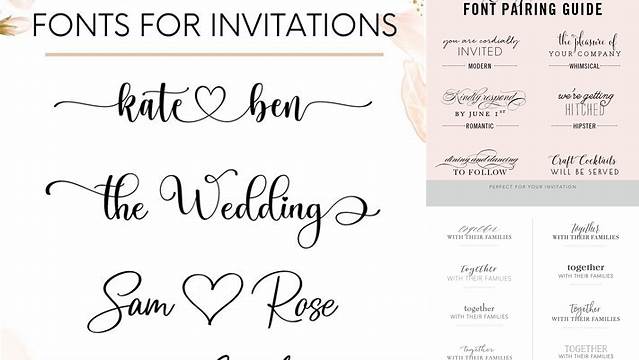
Elegant Fonts: The Best For Wedding Invitations
So, you're planning a wedding, huh? Congratulations! One of the most exciting parts (besides, you know, marrying the love of your life) is setting the tone for your big day. And what better way to do that than with gorgeous wedding invitations? But let's be real, choosing the right fonts can feel like navigating a maze. Fear not, future newlyweds! This comprehensive guide will walk you through the best fonts for wedding invitations, ensuring your invites are as stunning as your love story. Let's dive in, guys!
1. Elegant Calligraphy Fonts for Wedding Invitations
Elegant calligraphy fonts are a classic choice for wedding invitations, and for good reason! They exude sophistication and romance, adding a touch of timeless beauty to your special day. When you think of a traditional wedding, elegant calligraphy fonts often come to mind, evoking a sense of formality and grace. These fonts can transform your wedding invitations from simple cards into works of art, setting the perfect tone for a memorable celebration. Selecting an elegant calligraphy font is more than just choosing letters; it's about selecting a visual representation of your love story and the ambiance you wish to create for your wedding. Imagine your guests receiving an invitation adorned with swirling, delicate characters that hint at the beautiful and sophisticated event to come. That's the power of calligraphy!
But with so many calligraphy options available, how do you choose the right one? It's essential to consider the overall style and theme of your wedding. A very ornate and elaborate calligraphy might be perfect for a grand, formal affair, but it might feel out of place for a relaxed, bohemian wedding. Similarly, a modern calligraphy style with clean lines and a touch of whimsy might be ideal for a contemporary celebration. It’s crucial to choose a font that not only looks beautiful but also complements the overall aesthetic of your event. Think about your venue, the color scheme, and the general vibe you're aiming for. The font should enhance these elements, not clash with them.
When browsing elegant calligraphy fonts, pay attention to the details. Look at the thickness of the strokes, the presence of swashes and flourishes, and the overall readability of the font. Some calligraphy fonts are so intricate that they can become difficult to read, especially in smaller sizes. You want your guests to be able to easily read the essential information, such as the date, time, and location of the wedding. Balance elegance with practicality by choosing a font that is both beautiful and legible. Consider testing out different sizes and weights of the font to see how it looks printed on your invitation cards. You might also want to experiment with different color combinations to ensure that the font stands out against the background. Ultimately, the goal is to find an elegant calligraphy font that not only captures the essence of your love but also conveys the important details of your wedding day in a clear and stylish manner.
2. Modern Sans-Serif Fonts for Wedding Invitations
Moving away from the traditional, modern sans-serif fonts offer a sleek and contemporary feel for wedding invitations. If you're planning a wedding with a minimalist or modern aesthetic, these fonts are the way to go! Modern sans-serif fonts are characterized by their clean lines and lack of serifs (the little decorative strokes at the ends of letters). This simplicity lends itself well to a variety of wedding styles, from urban chic to understated elegance. They bring a fresh and airy feel to your invitations, making them a perfect choice for couples who appreciate clean design and readability. Think of these fonts as the stylish and sophisticated counterpart to the more traditional calligraphy options. They’re perfect for couples who want to convey a sense of contemporary romance and effortless cool.
One of the best things about modern sans-serif fonts is their versatility. They pair well with a wide range of design elements and color schemes. You can use them for the main text of your invitation, for headings, or even for both! This adaptability makes them a fantastic choice for couples who want a font that can work in various contexts. For instance, you could use a bold sans-serif for the couple's names and a lighter weight for the rest of the details. This creates a visual hierarchy that guides the reader’s eye and makes the information easier to digest. Additionally, modern sans-serif fonts work beautifully with minimalist designs, allowing the focus to remain on the important details without overwhelming the overall look. These fonts shine when paired with simple layouts, clean lines, and a limited color palette, allowing the font's inherent elegance to take center stage. Using modern sans-serif fonts can really enhance the readability of your invitations, ensuring that your guests can easily access all the important information, such as the date, time, and location.
When selecting a modern sans-serif font, consider the personality you want to convey. Some sans-serif fonts are bold and assertive, while others are delicate and understated. Think about the vibe of your wedding and choose a font that reflects that. For a chic, urban wedding, a geometric sans-serif might be the perfect fit. For a more romantic and understated affair, a lighter and more elegant sans-serif could be ideal. Don’t be afraid to experiment with different fonts and combinations to find the perfect match for your style. Also, consider the spacing between letters and lines. Sans-serif fonts can sometimes appear too close together, making them harder to read. Adjusting the kerning and leading can make a big difference in the overall appearance and readability of your invitation. By carefully selecting and using a modern sans-serif font, you can create wedding invitations that are both stylish and inviting, reflecting your unique style and setting the tone for a memorable celebration.
3. Romantic Serif Fonts for a Classic Wedding Theme
For a wedding steeped in classic romance, serif fonts are an excellent choice. Serif fonts are characterized by the small decorative strokes (serifs) at the ends of the letters, which give them a traditional and refined look. These fonts evoke a sense of history and elegance, making them perfect for couples who want to create a timeless and sophisticated wedding invitation. If you're envisioning a wedding with classic touches like candlelight, flowing fabrics, and traditional floral arrangements, a romantic serif font will seamlessly complement your theme. The serifs add a touch of formality and grace, creating an invitation that feels both luxurious and welcoming. Choosing the right serif font is about more than just aesthetics; it's about capturing the essence of your love story and the atmosphere you want to create for your big day. Think of the serif fonts as the perfect complement to all things timeless and romantic, adding a touch of grace and elegance to your special day.
Serif fonts come in a wide variety of styles, from traditional to contemporary, so you have plenty of options to choose from. Some serif fonts have thick, bold serifs, while others have delicate, refined serifs. The key is to find a font that not only looks beautiful but also reflects the overall style and tone of your wedding. A classic serif font like Times New Roman or Garamond is perfect for a traditional wedding, while a more modern serif font like Playfair Display or Merriweather can add a contemporary twist to a classic theme. Consider the weight of the font as well. A heavier serif font can make a bold statement, while a lighter serif font is more understated and elegant. It’s essential to balance the visual impact with readability, ensuring that your guests can easily read all the important details of your wedding.
When incorporating serif fonts into your wedding invitations, think about how they will interact with other design elements. Serif fonts often pair well with calligraphy accents or decorative elements, adding a touch of personality and visual interest. You can also play with different font sizes and weights to create a visual hierarchy, guiding the reader’s eye through the invitation. Using a larger serif font for the couple's names and a smaller serif font for the details can create a stylish and organized look. Remember to pay attention to the spacing between letters and lines. Serif fonts can sometimes look crowded if the spacing is too tight. Adjusting the kerning and leading can greatly improve the readability and overall appearance of your invitation. By carefully selecting and using serif fonts, you can create wedding invitations that are both romantic and refined, setting the stage for a beautiful and memorable celebration. These fonts offer a touch of timeless elegance, ensuring your invitations convey the sophistication and grace of your special day.